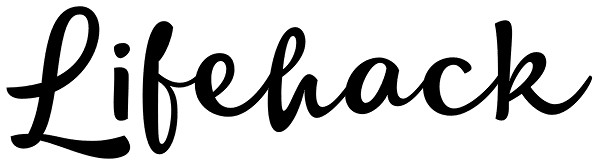
Lifehack
Dear type lovers, meet Lifehack - a casual script with a huge personality. Warm, amiable and organic, yet elegant, it is perfect if you want to convey individuality and style. The Lifehack family consists of the original Lifehack script, an Italic...